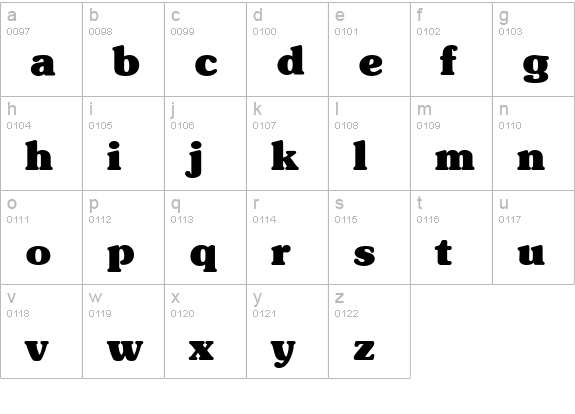
SunsetSerial-Heavy-Regular Font Details
SunsetSerial-Heavy-Regular is a heavy, high-impact variant in the SunsetSerial typeface family \xE2\x80\x94 well suited to high-impact headlines, posters, and display advertising.
SunsetSerial-Heavy-Regular is a bold and stylish font that exudes a sense of strength and modernity. With its heavy weight and sharp edges, this font is perfect for making a bold statement in your designs. Whether you're creating posters, logos, or headlines, SunsetSerial-Heavy-Regular will grab attention and leave a lasting impression. The best part? SunsetSerial-Heavy-Regular is available for free download at FontsMarket.com. Now you can add this striking font to your collection without breaking the bank. Don't miss out on the opportunity to elevate your designs with SunsetSerial-Heavy-Regular's unique and eye-catching style. Download it today and start creating impactful visuals that stand out from the crowd.